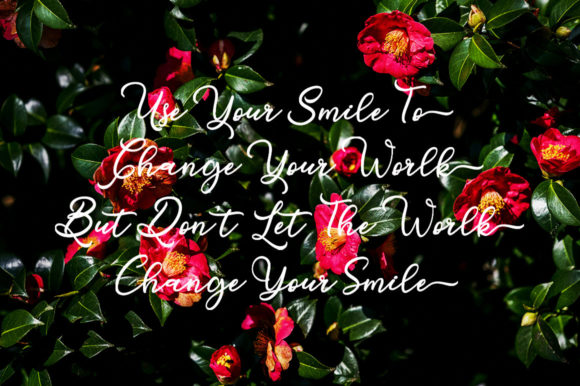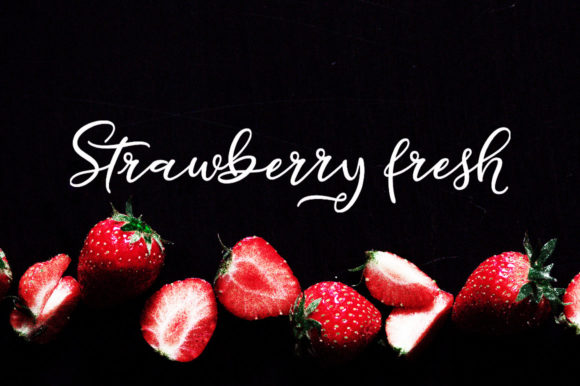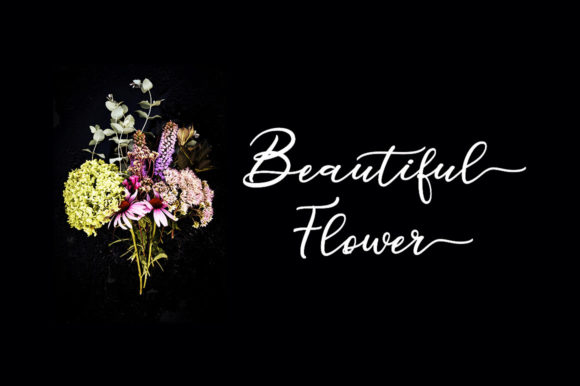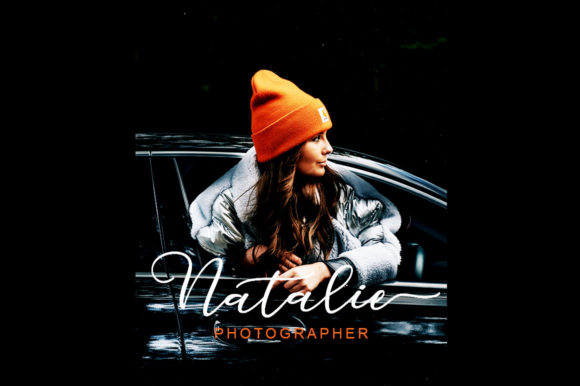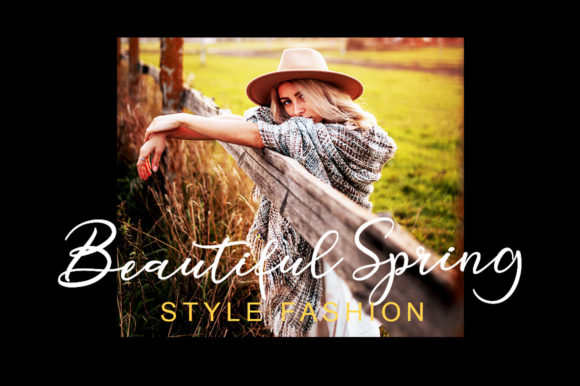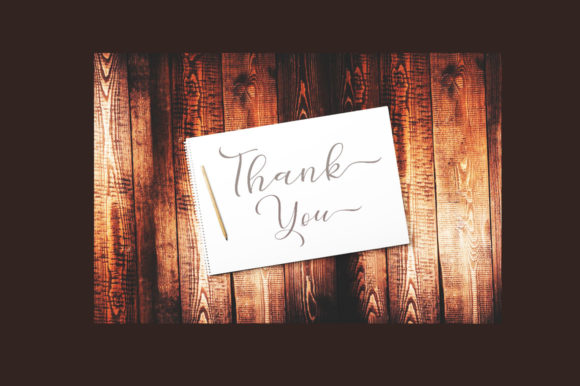
Introduction to Mitabela Font
Have you ever stumbled upon a design that instantly sparks your creativity? Maybe it was a beautifully crafted wedding invitation or a handwritten quote that stole your heart. For designers, these moments are what fuel our passion and drive us to create something truly special. One such design element that has been making waves in the design community is the stunning Mitabela Font.
With its elegant script style, this font is perfect for adding a handwritten touch to any design project. Whether it’s a wedding invitation, a thank you card, or a logo, Mitabela Font is sure to elevate your design to the next level. As a valuable resource for designers, this font offers a high-quality and versatile option for any creative project.
Key Features of Mitabela Font
- Unique, hand-drawn design elements add a touch of elegance to any project
Honest Review: Mitabela Font
I recently stumbled upon the Mitabela Font while searching for a high-quality design resource for a creative project. I was immediately drawn to its elegant and sophisticated look, making it perfect for a variety of applications.
- ✨ High-quality design with intricate details, perfect for making a statement.
- ✨ Compatible with a range of applications, including graphic design, web design, and more.
- ⚠️ Limited font sizes and styles available, which may limit its versatility.
- ⚠️ Not suitable for use in low-resolution designs, as the intricate details may become distorted.
Overall, I’m impressed with the Mitabela Font. Its high-quality design and free download make it an excellent choice for designers working on creative projects. While it may have some limitations, it’s definitely worth considering for any design where a sophisticated look is required.
Mitabela Font is a high-quality, free download design resource perfect for creative projects. With its unique style and transparent background, it’s an ideal choice for designers looking to add a touch of elegance to their work.
To get the most out of Mitabela Font, experiment with different font sizes, colors, and combinations. You can also use it in conjunction with other design elements, such as images and graphics, to create a visually appealing design.
Mitabela Font is perfect for various design projects, including:
- Presentations and slides
- Posters and advertisements